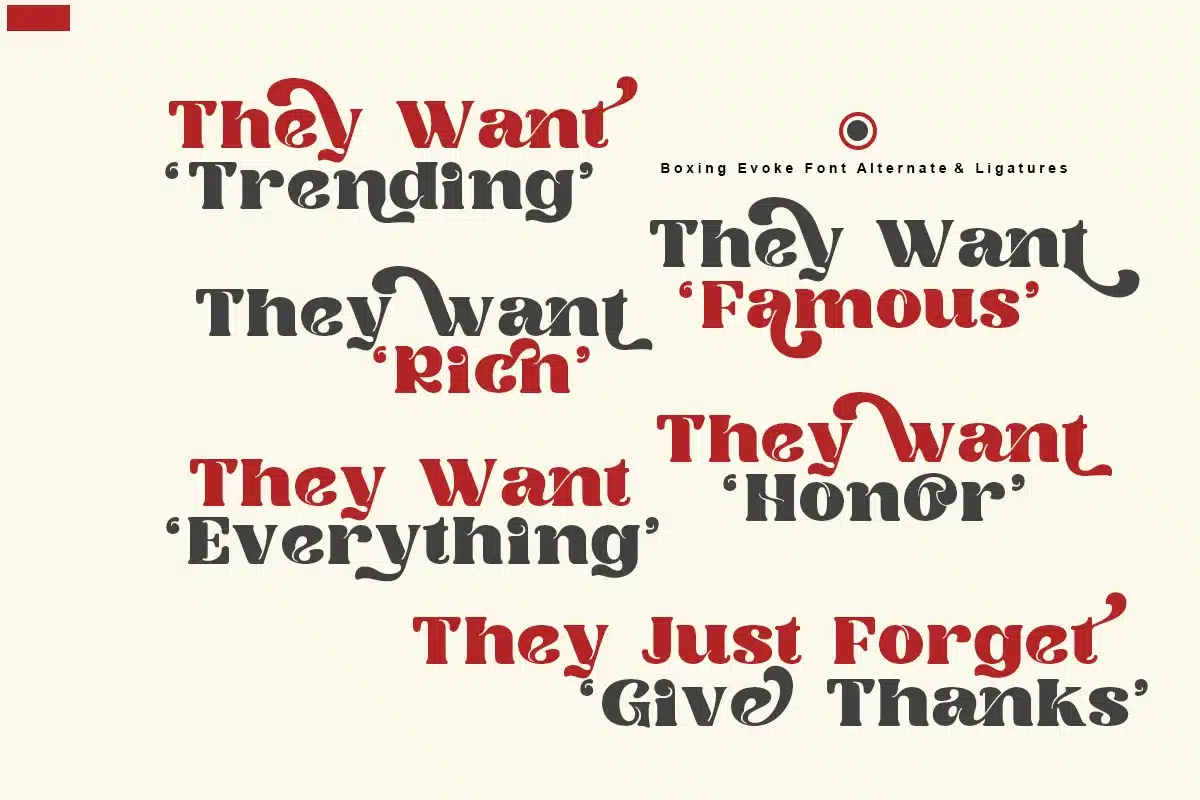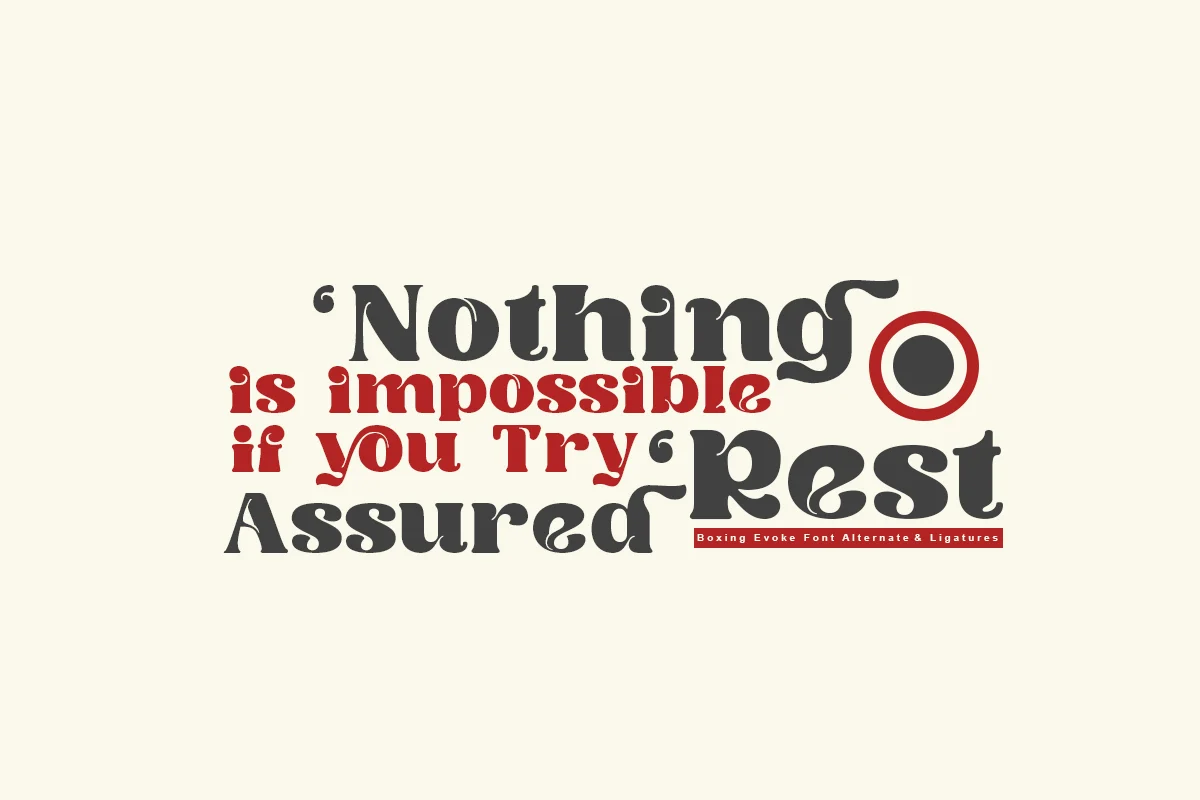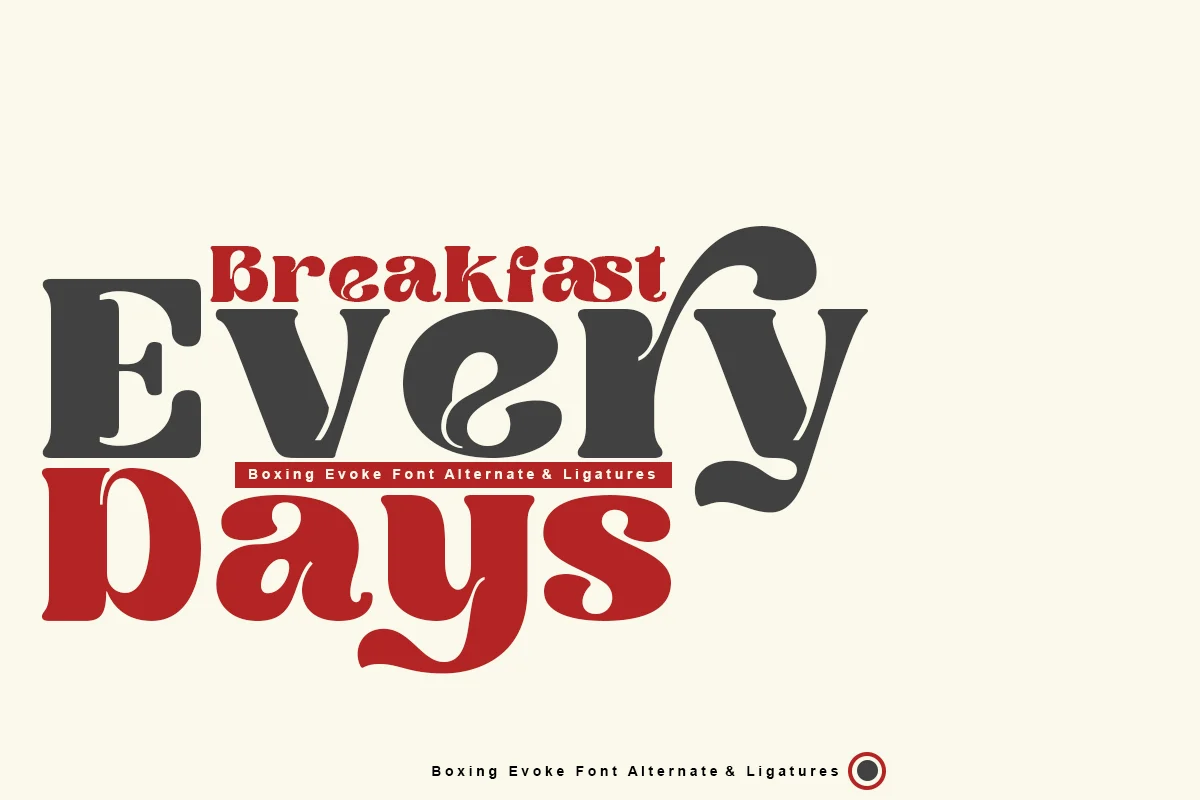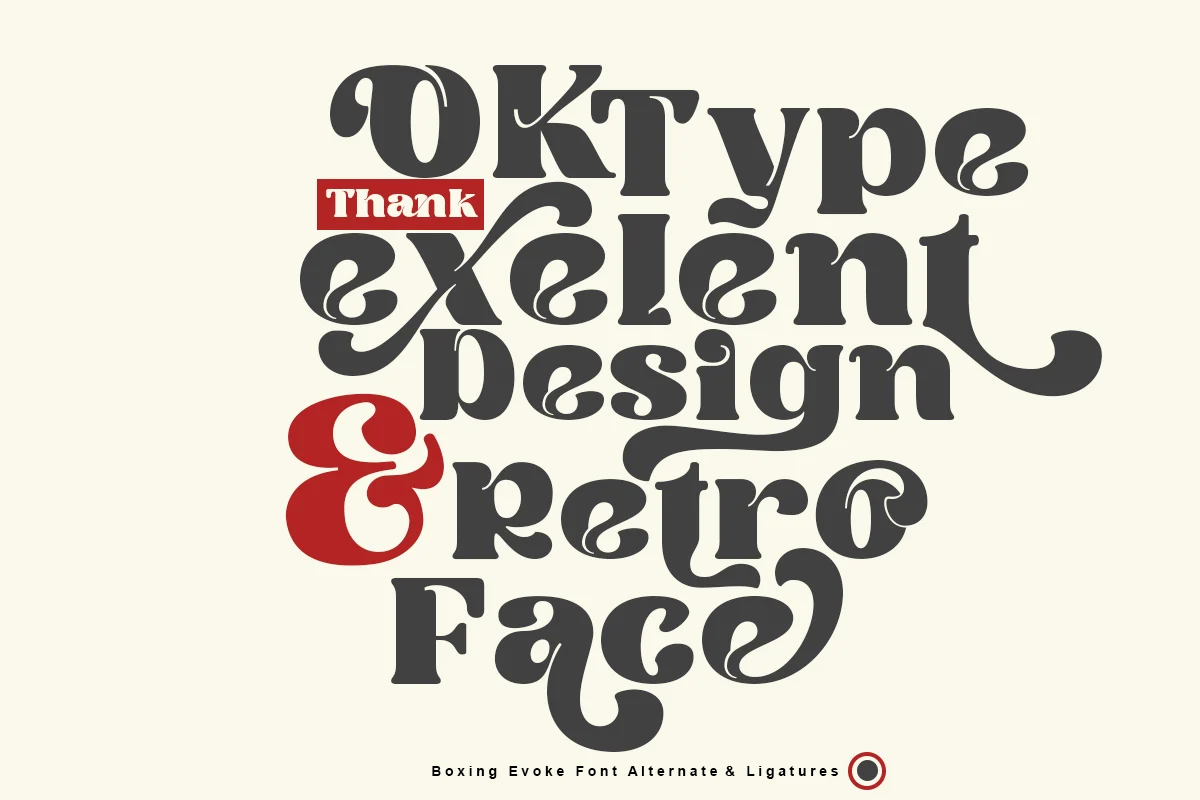
Boxing Evoke Font
xperience the refinement and fashion-forward appeal of Boxing Evoke – the font that is every designer’s dream. Infused with elegance and a dash of boldness, Kimberly transforms ordinary designs into masterpieces of modern style. It’s not just a font; it’s a sweet companion for your design journey, infused with a host of characters to make your artwork stand out. Boxing Evoke adds an extra layer of class, offering a distinct new edge that enhances your design’s overall aesthetic. With Boxing Evoke, immerse your work in a sea of chic and distinctive flair.
Ligature
Alternate